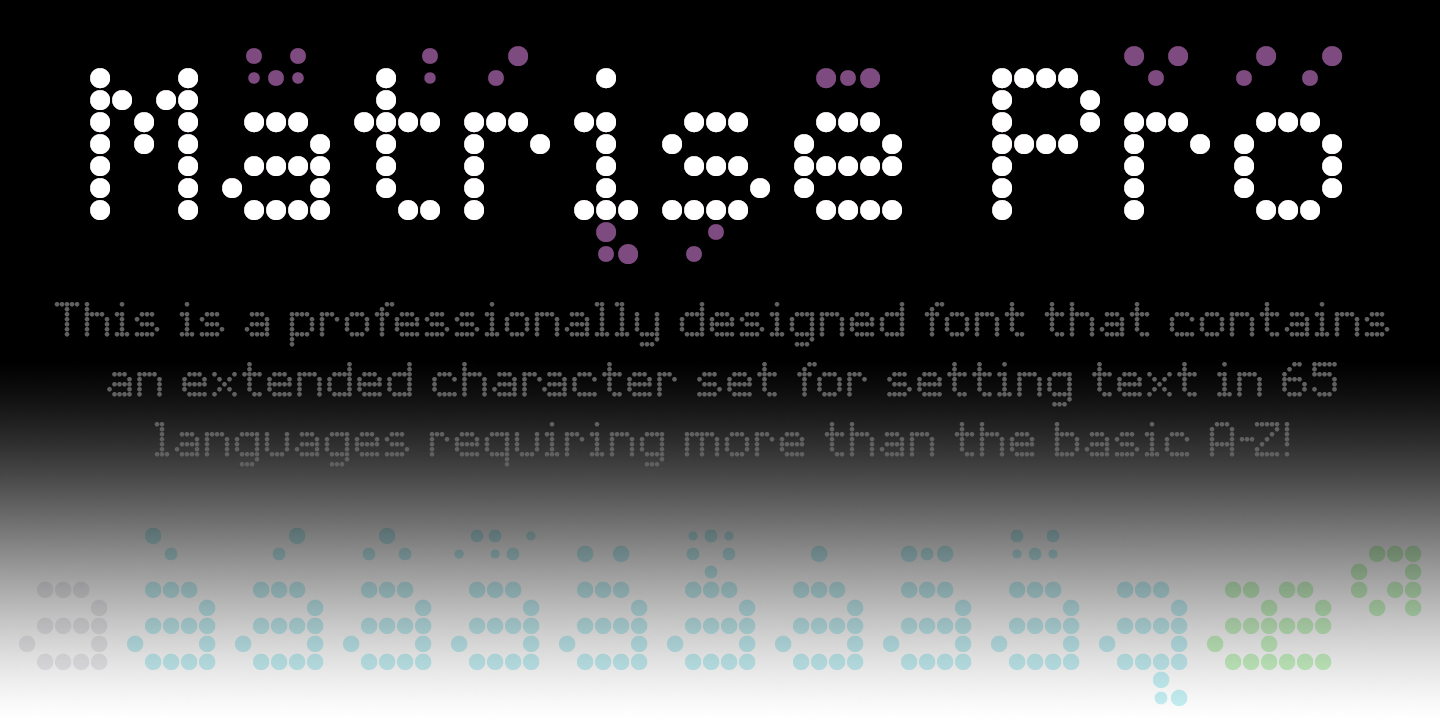
Matrise Pro
Matrise Pro is a pixel font published by CheapProFonts.
I have used some slightly smaller dots when designing the diacritics - this makes them easier to separate from the main letters.
A new font in the style of a dot matrix/needle-printer. I have used some slightly smaller dots when designing the diacritics - this makes them easier to separate from the main letters. I have also used variable letter widths (and kerning), as opposed to the technology’s original monospaced design - this to make the text more readable :)